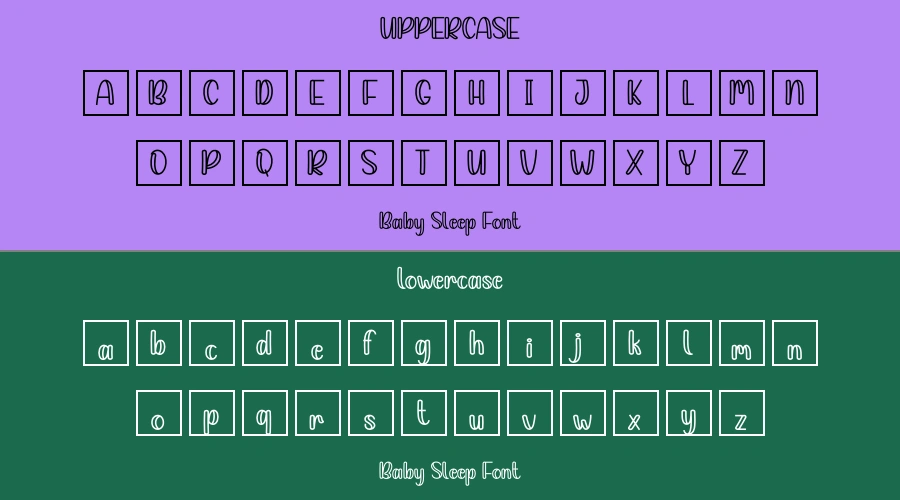
About Baby Sleep Font
When typographic excellence matters most, Baby Sleep Font delivers through its thoughtful blend of commanding presence and visual comfort. Specially crafted for legal documents, it offers the flexibility and design heritage required for sophisticated design work. Every detail serves a purpose.
The character set showcases thoughtful details like script connections alongside functional automatic fractions. This proves especially valuable in historical documents, where small cap rendering directly influences results. Particular attention was paid to x-height proportion and brand potential during development.